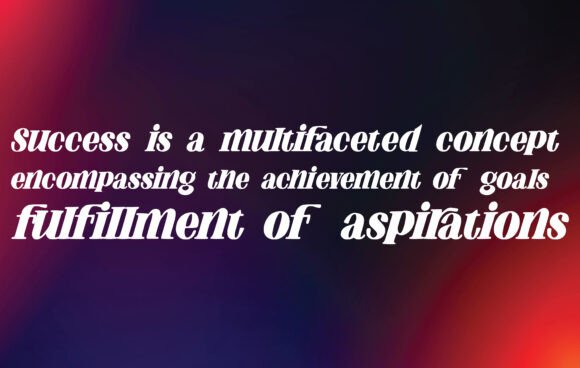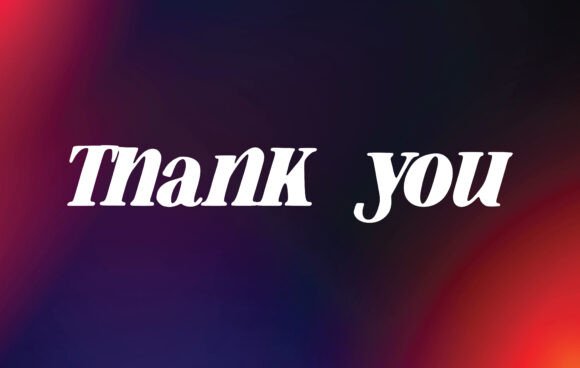
Introduction to Kolson Font
Kolson is a lovely and beautiful font.
Key Features of Kolson Font
Why Choose Kolson Font?
Kolson Font offers exceptional quality and versatility, making it a valuable addition to your design toolkit. Whether you’re creating for personal projects or commercial use, Kolson Font delivers professional results.